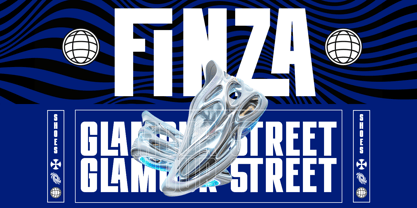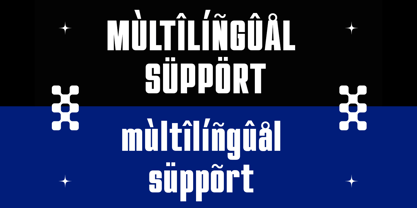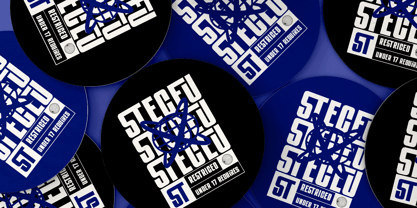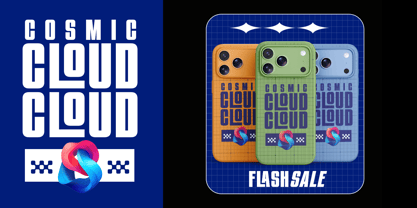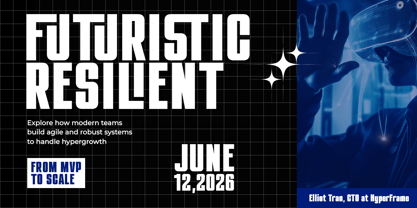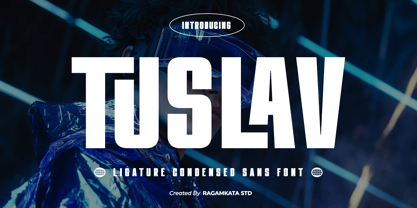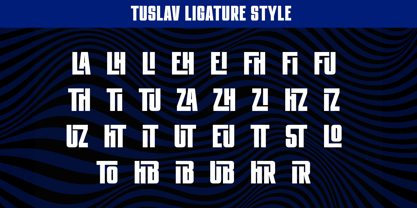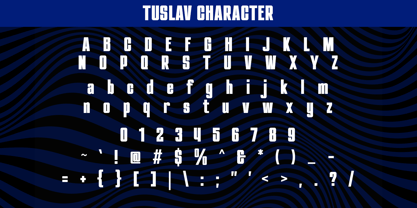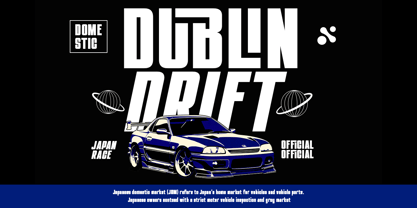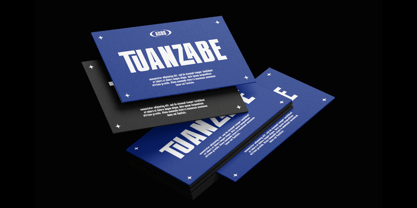
SS Tuslav
La famille de polices SS Tuslav a été conçue par Yogiswhara Dio Prakoso Riadi et publiée par RagamKata. SS Tuslav contient 2 styles et options de package familial. En savoir plus sur cette famille
Tuslav is a bold condensed sans serif typeface crafted for futuristic visuals and high-impact modern design. Drawing inspiration from digital culture, technology, and contemporary aesthetics, Tuslav showcases strong proportions, tight spacing, and clean geometry that deliver power and clarity at first glance. With built-in ligature support and a condensed structure, Tuslav is ideal for projects that require efficiency and visual dominance. It performs exceptionally well in branding, posters, tech startups, gaming visuals, editorial headlines, UI concepts, and digital campaigns where both space and impact are crucial. Whether utilized for logos, headlines, or experimental layouts, Tuslav imparts a confident, modern voice to your typography. Thank You, Have a great day! Ragamkata